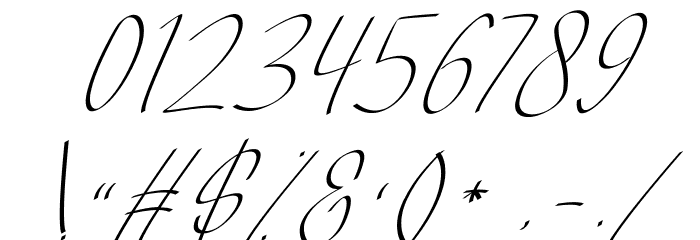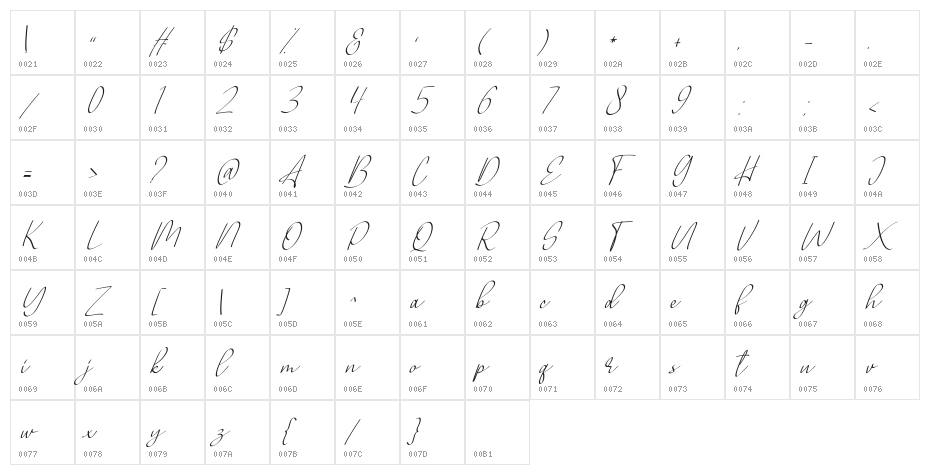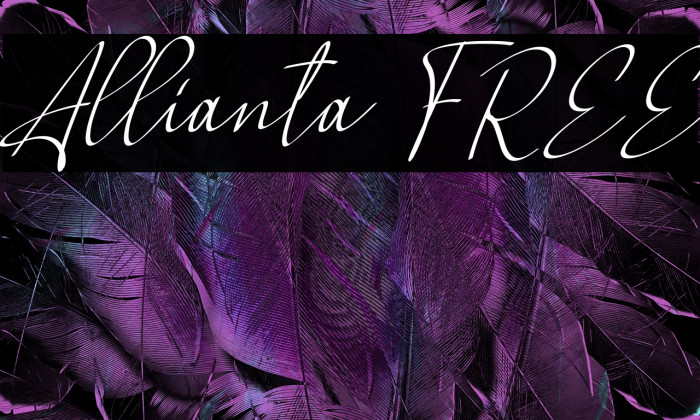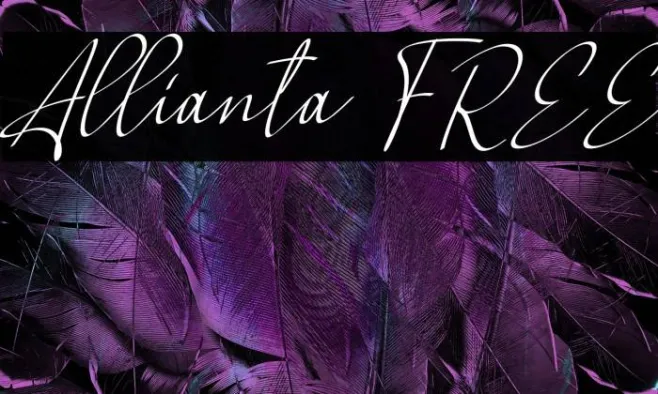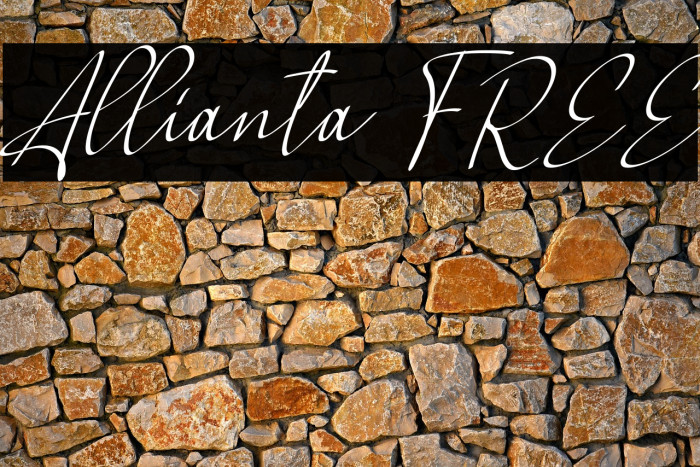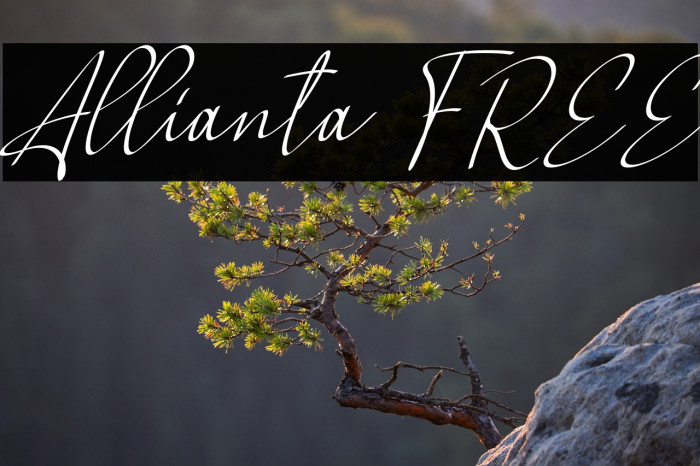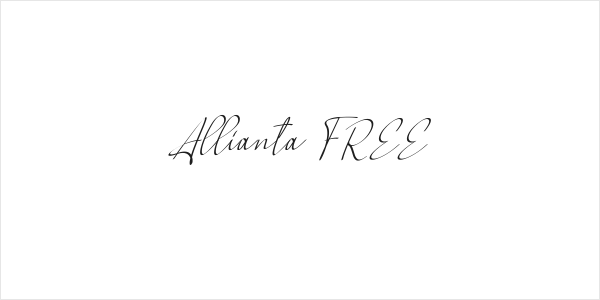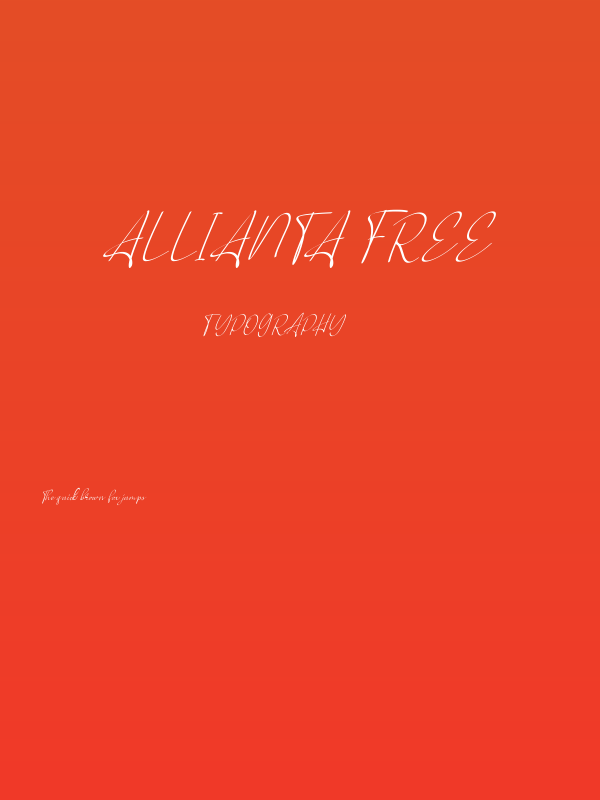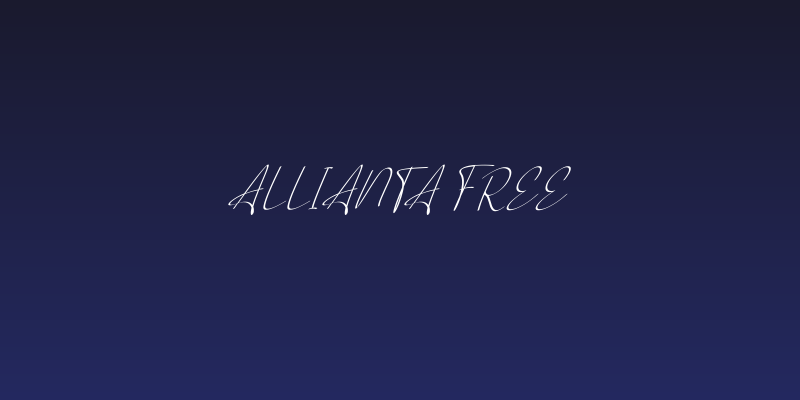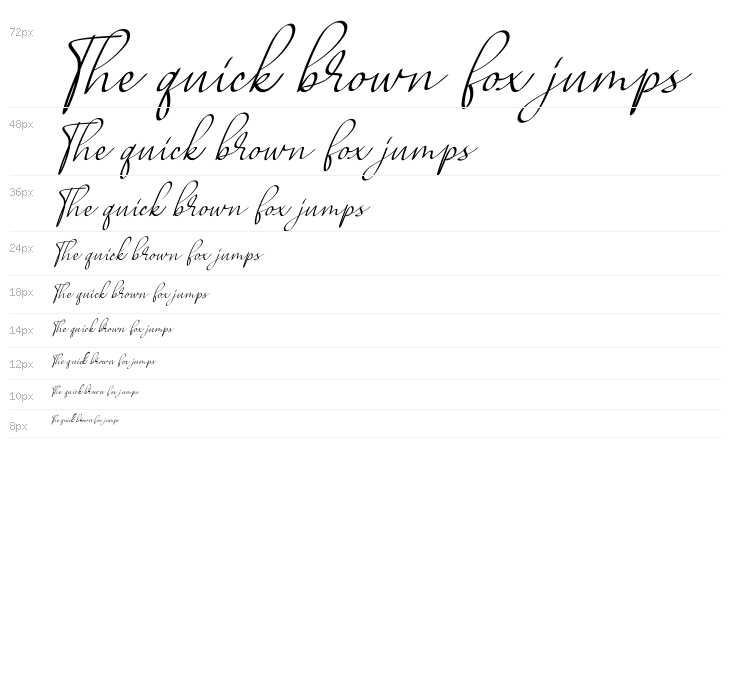
Allianta FREE Font
Allianta FREE Description
This elegant script font features fluid, cursive strokes that mimic the natural flow of handwriting. The uppercase letters are tall and slightly slanted, adding a sense of sophistication and grace. The lowercase letters maintain a consistent style, with smooth curves and delicate connections between characters. The numerals are designed to complement the letters, maintaining the same flowing style. Special characters are included, each crafted with the same attention to detail. This font is ideal for projects that require a touch of elegance and personal flair, such as invitations, greeting cards, and branding materials.
| Use Case | Invitations, Branding, Artistic projects |
| Proposed Projects | Ideal for wedding invitations, elegant branding, personal stationery, and artistic projects. |